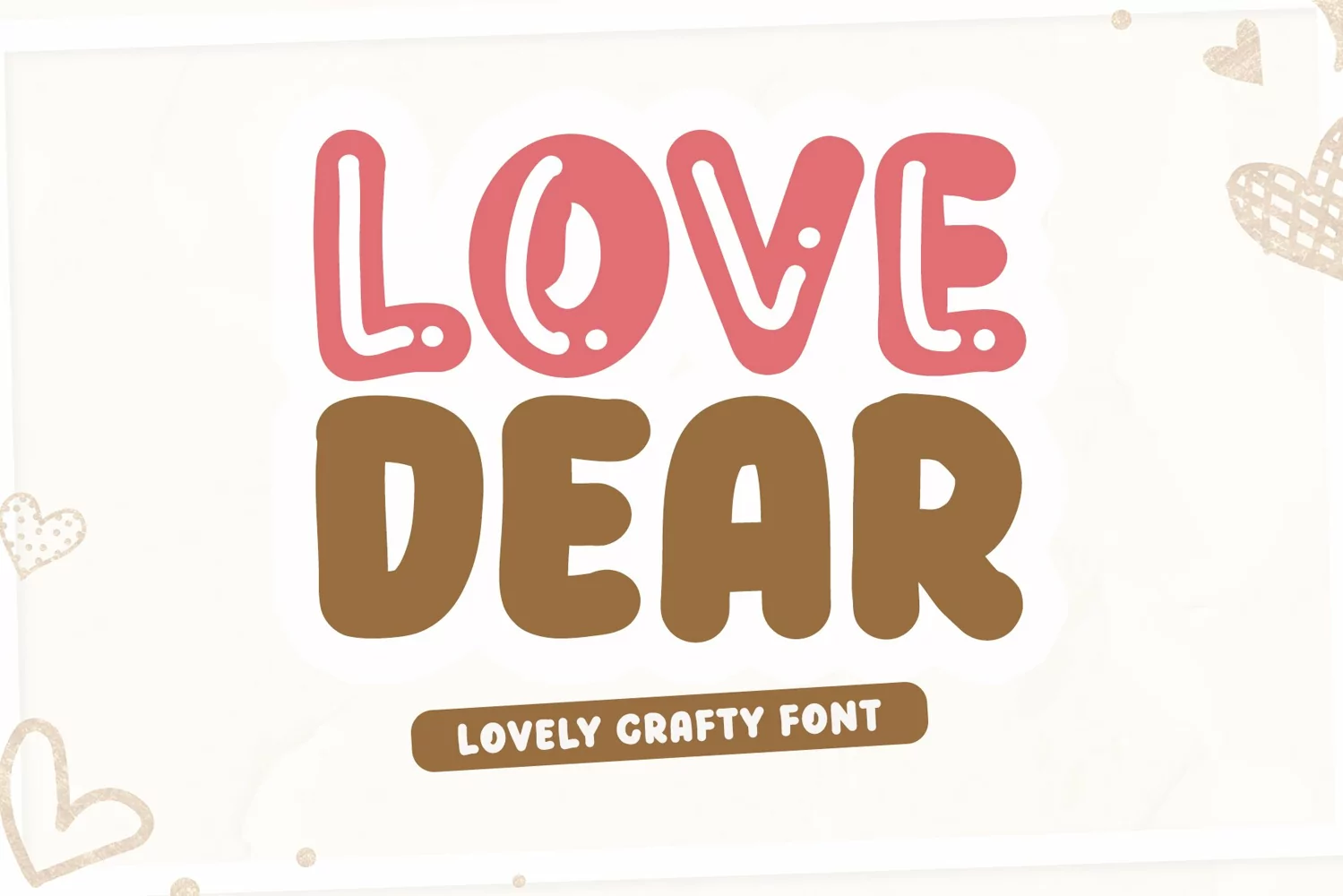
Beautiful Handwritten
Love Dear is a Lovely Crafty font. That font is perfect for ; kids craft, logos, greeting cards, a package design, a brand identity, craft design, any DIY project, book title, wedding invitation, packaging, Valentine project and more.